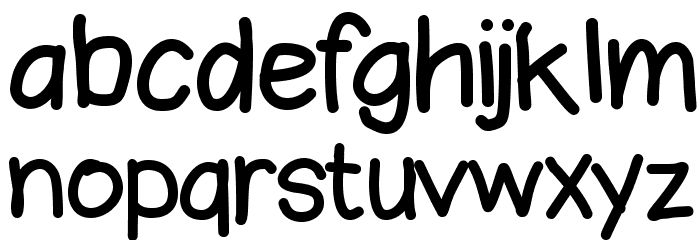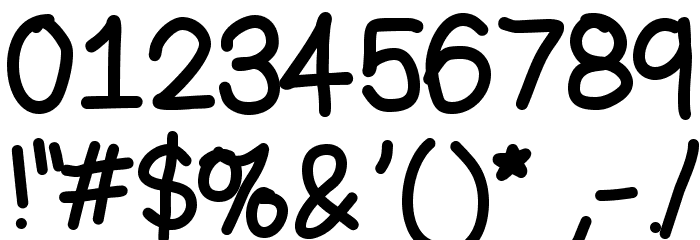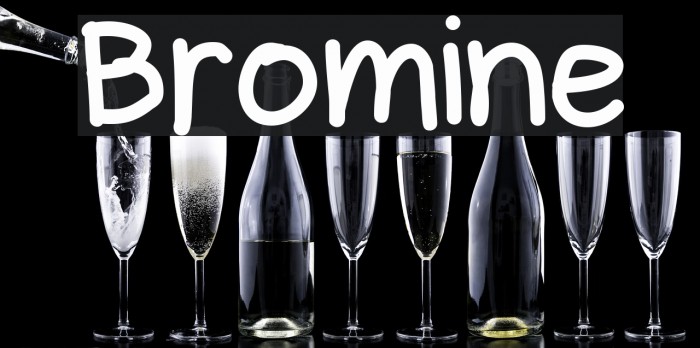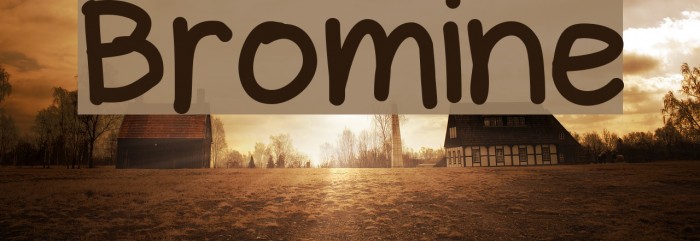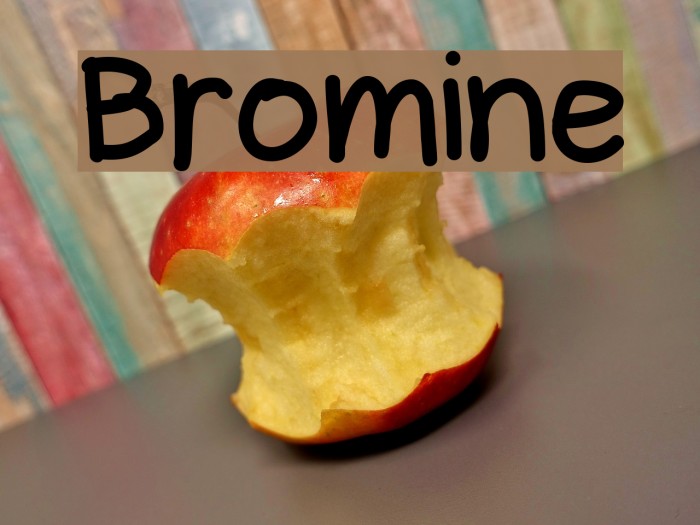
Bromine Font
This font features a playful and informal handwritten style, characterized by its rounded and slightly irregular letterforms. The uppercase and lowercase letters maintain a consistent flow, with a casual and friendly appearance. The numerals and special characters follow the same design ethos, ensuring a cohesive look across all characters. The strokes are uniform in thickness, contributing to a balanced and approachable aesthetic. This font is well-suited for projects that require a personal touch, such as children's books, greeting cards, or informal branding.
A playful, handwritten font with rounded, informal letterforms.
- Proposed Projects: Ideal for children's books, greeting cards, informal branding, and playful designs.
- Category: Handwritten
- Overall Style: Casual
- Use Case: Headlines, Informal text, Branding